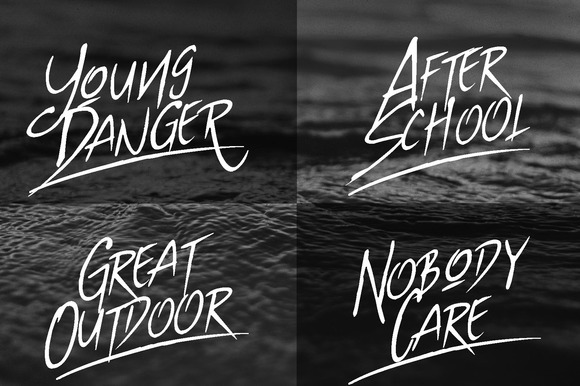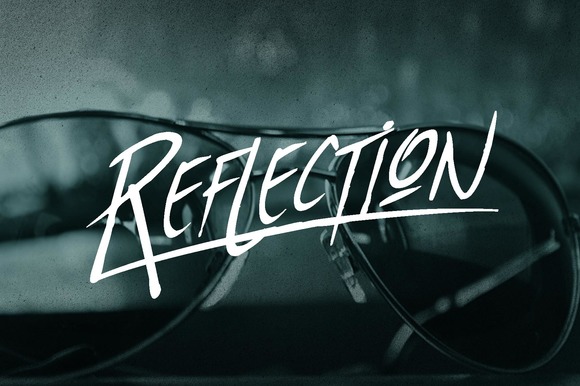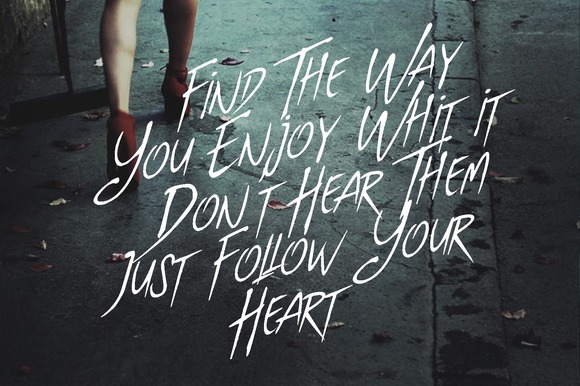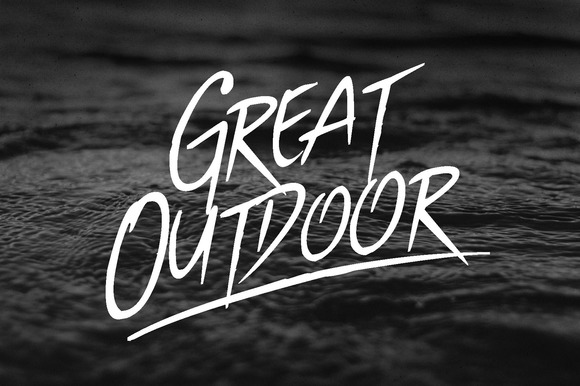
SCRATCH Typeface
SCRATCH TYPEFACE The school tables inspire me to make this font. Many scratches i found on the tables. The Scratch comes with two styles ; Regular and italic.